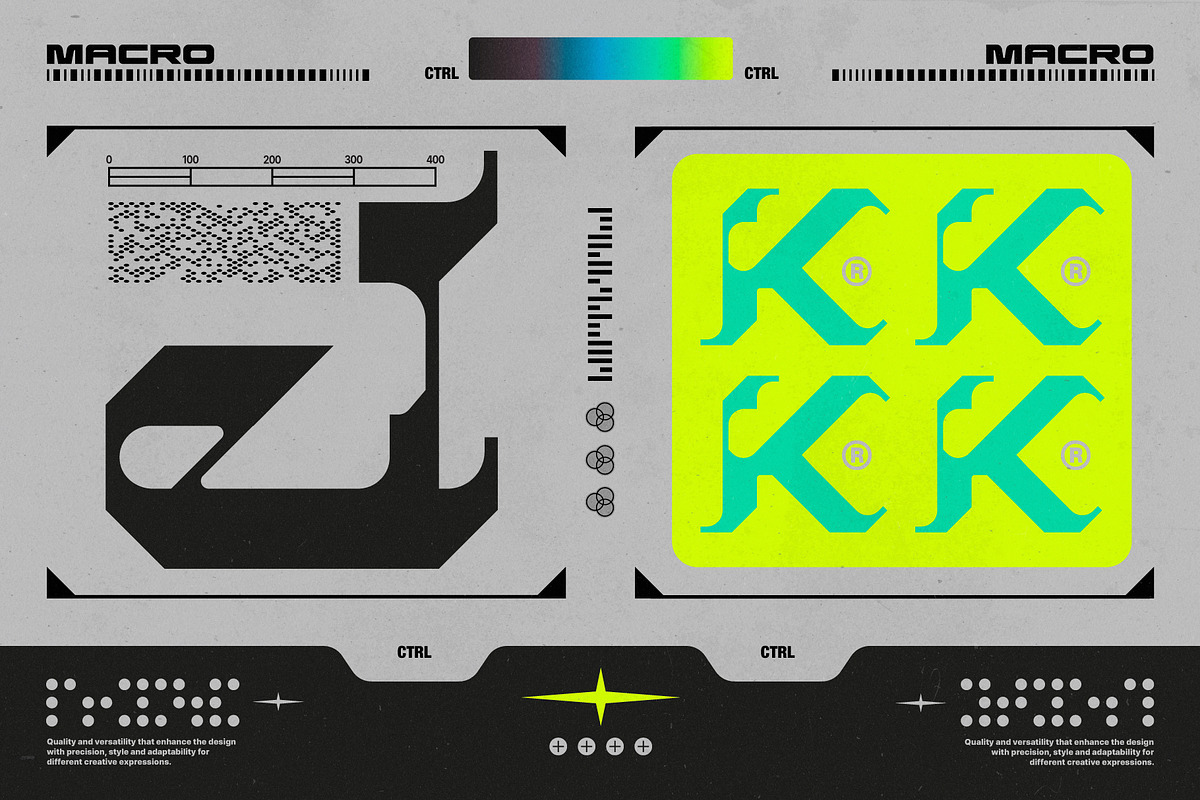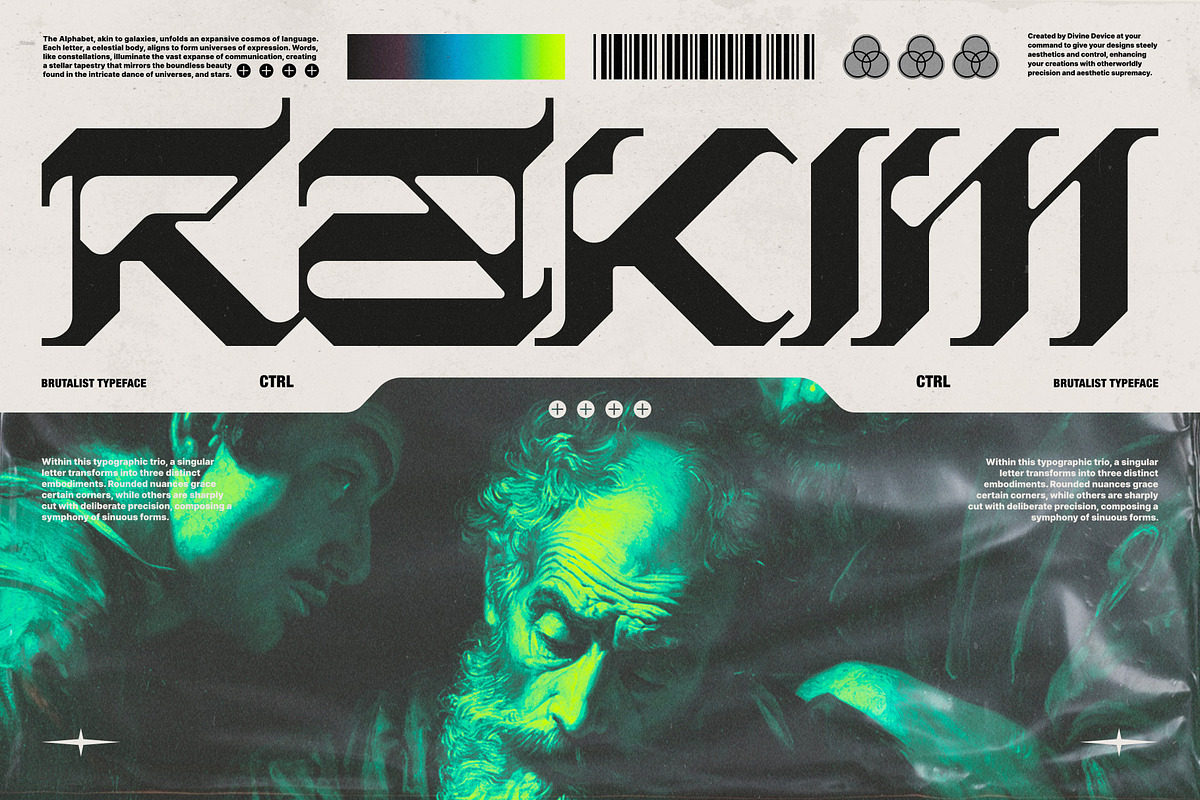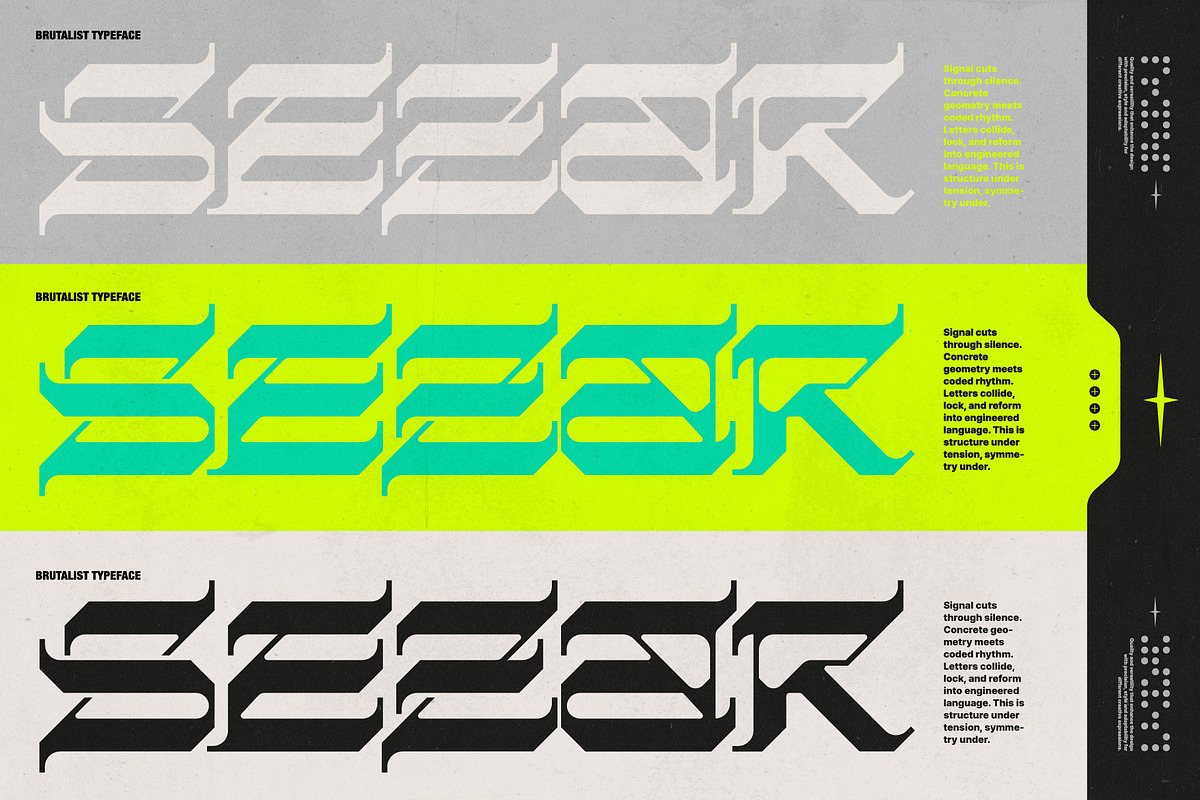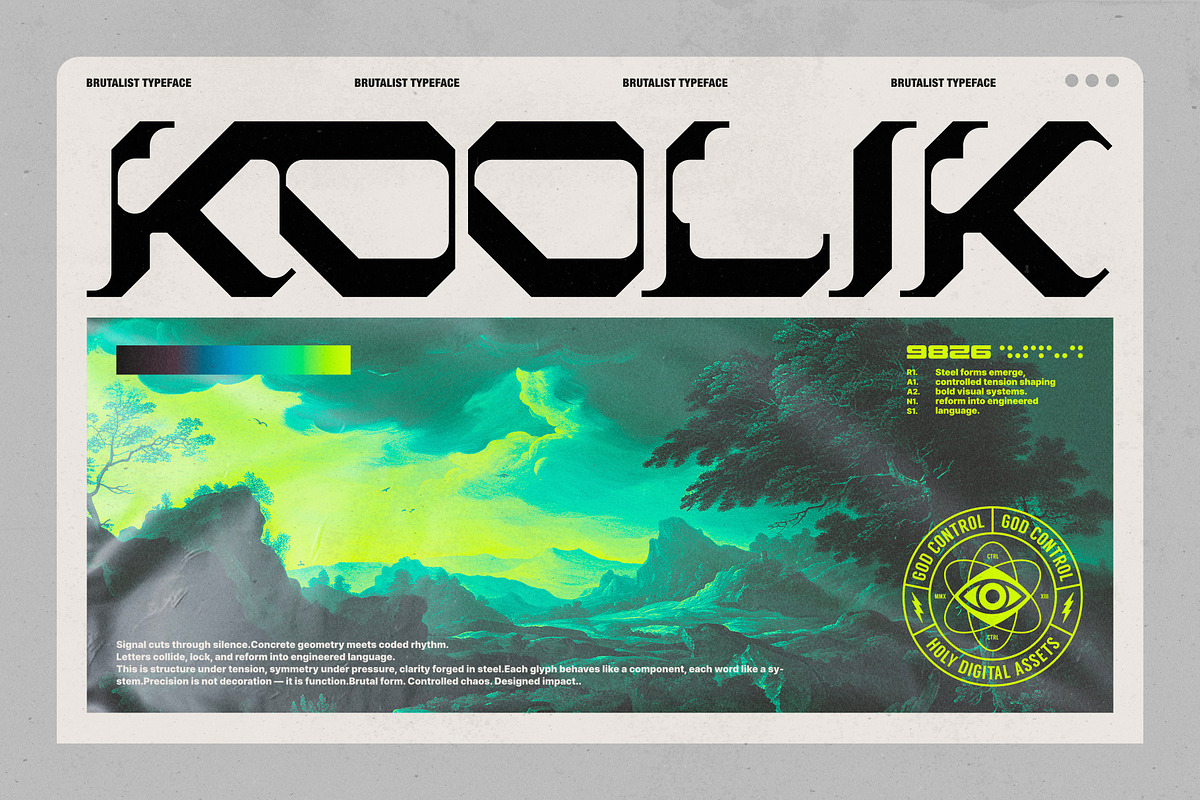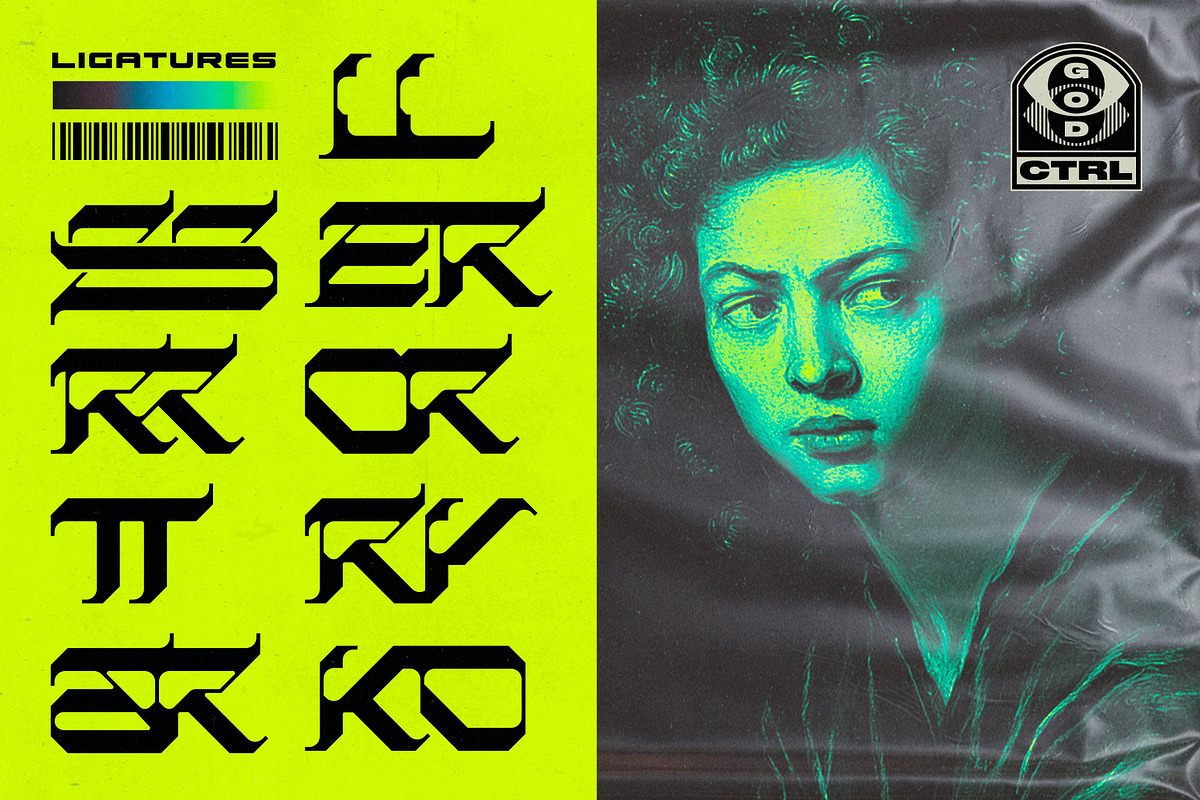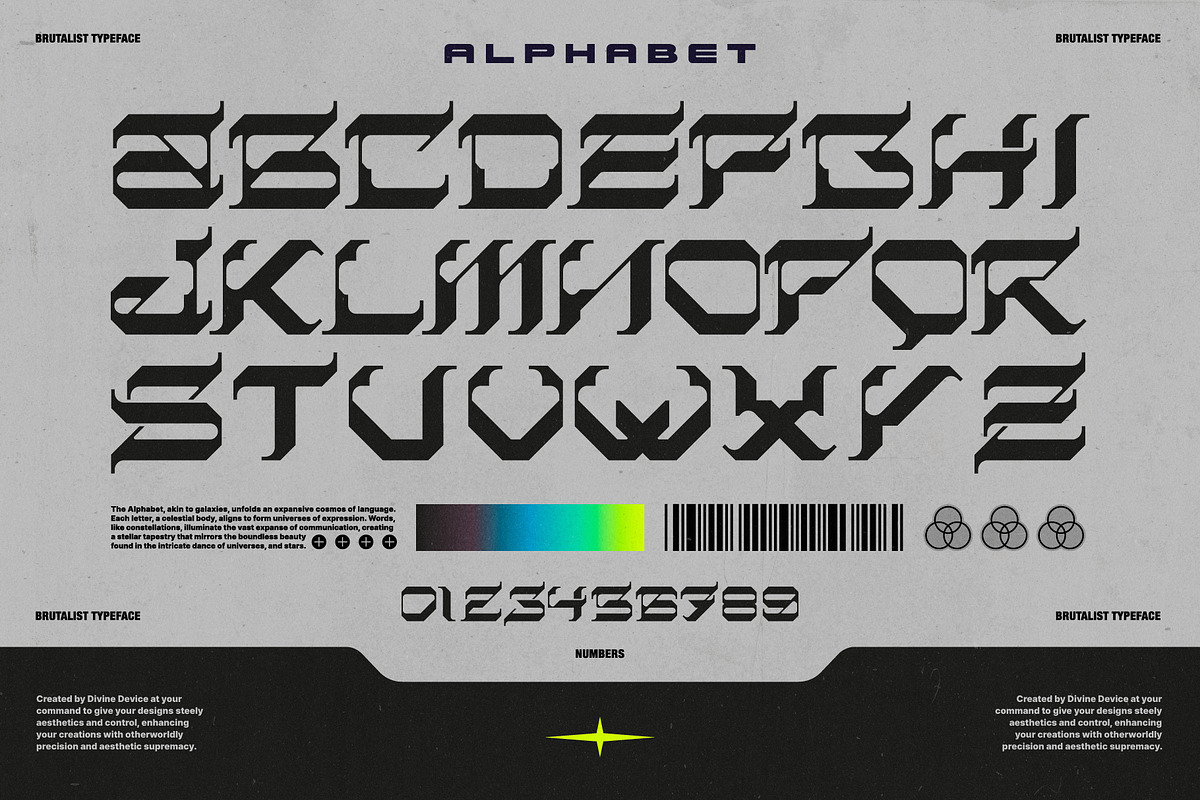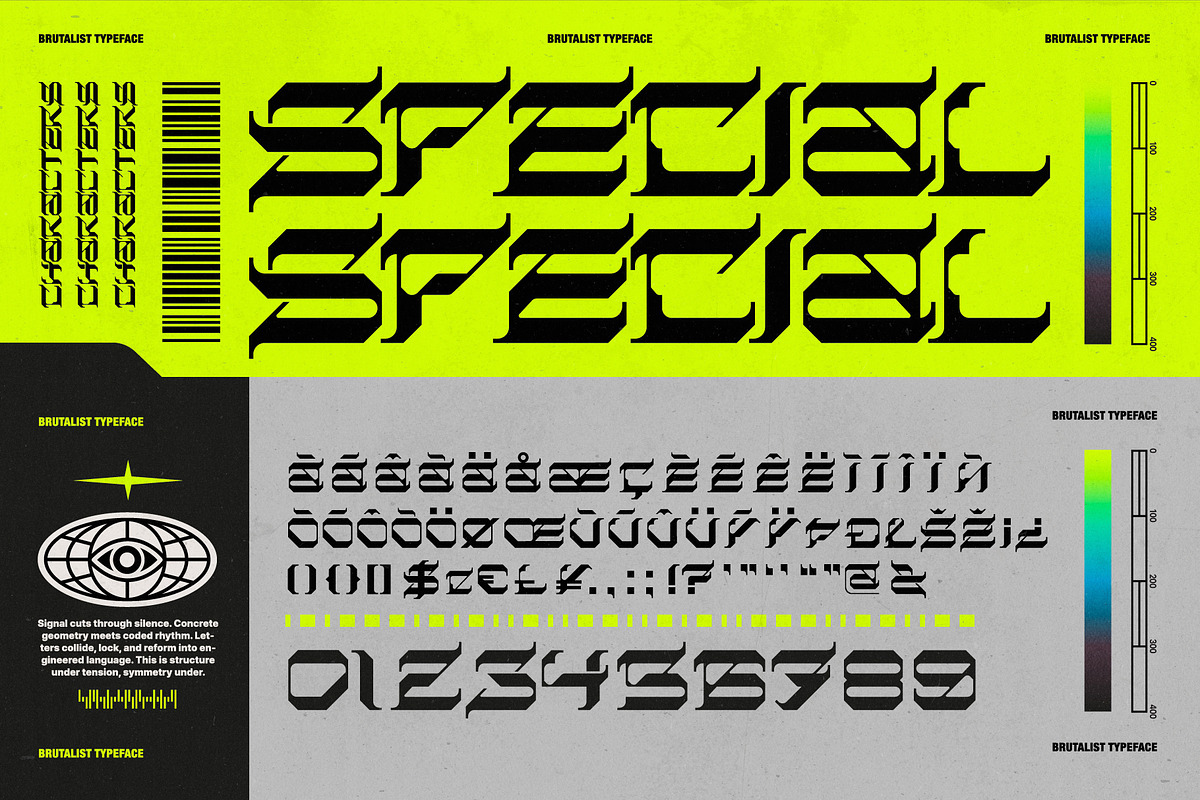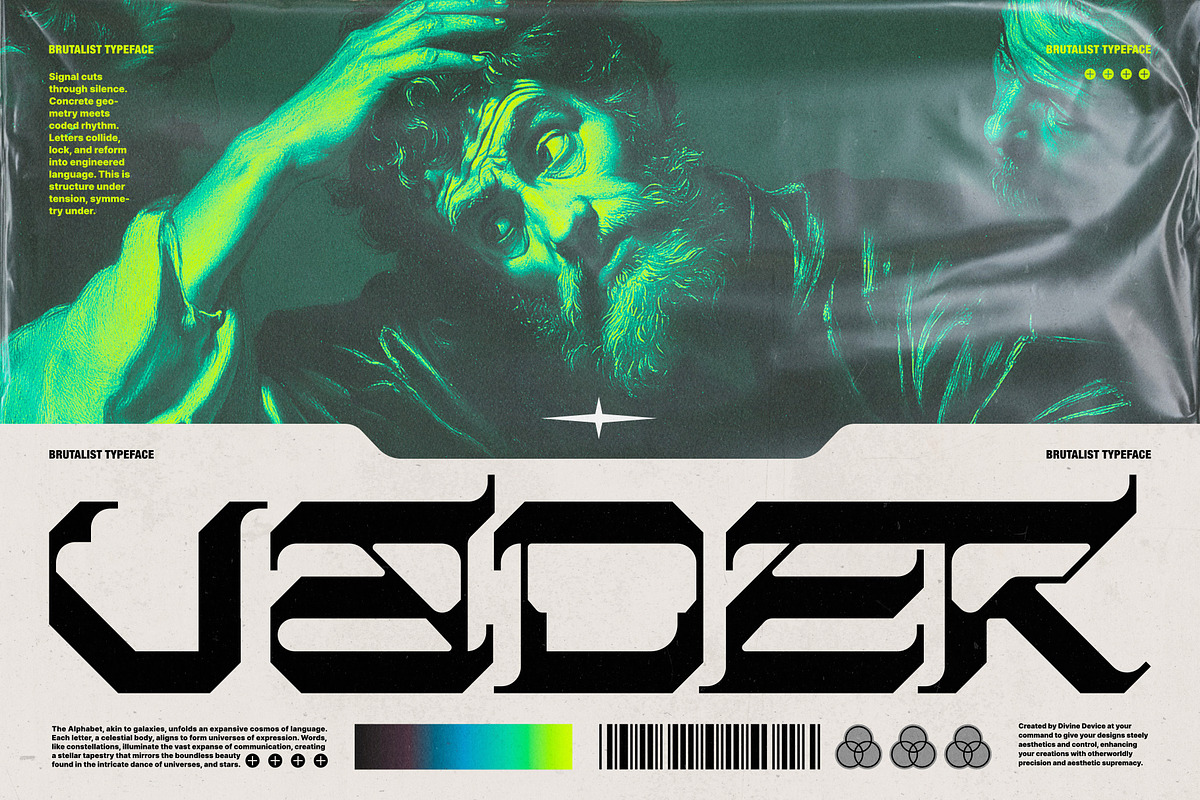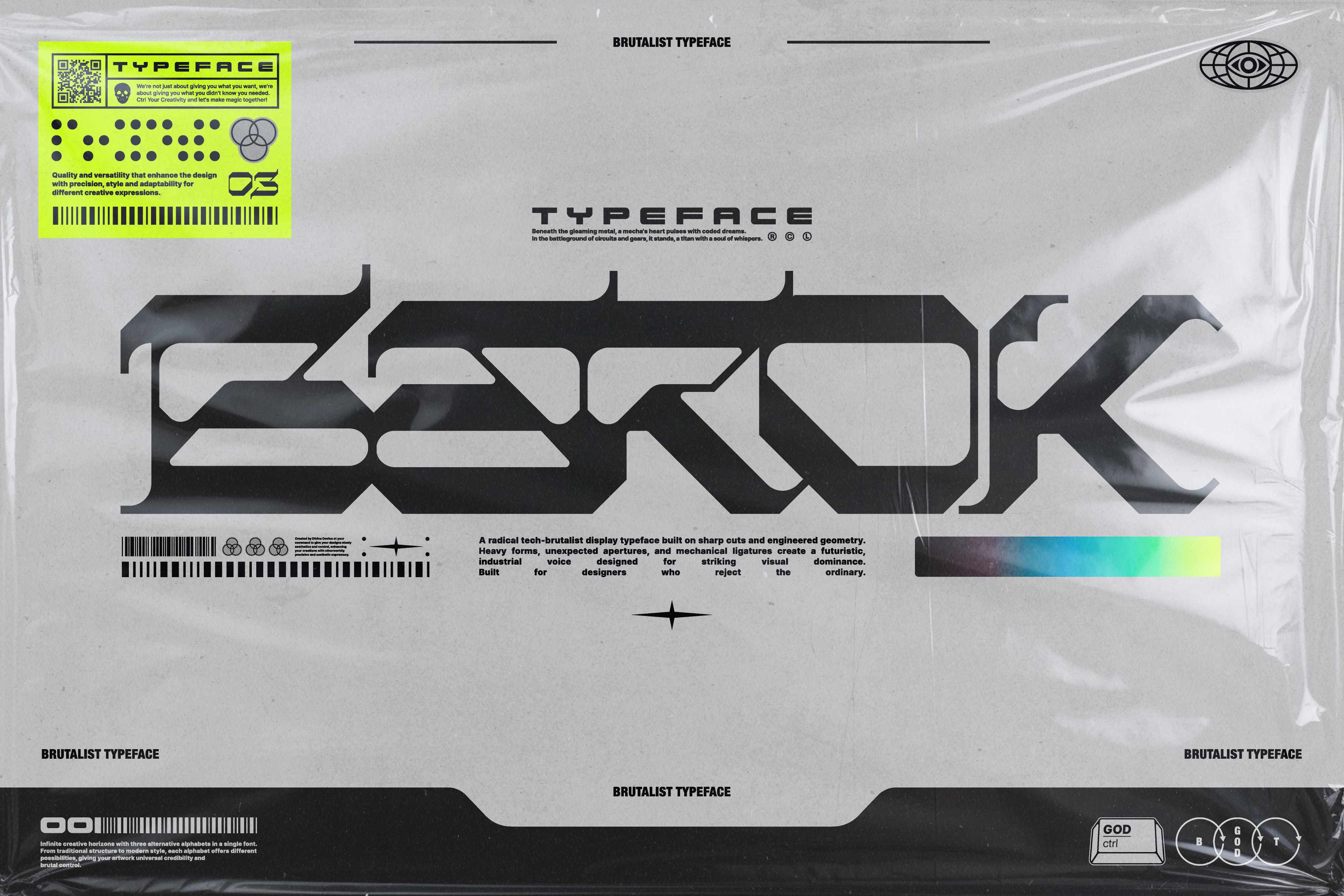
Barok Display Typeface
Barok is the display typeface you reach for when subtle isn’t enough.
It’s built on sharp cuts, engineered geometry, and controlled tension. Every character feels constructed, not drawn. Hard edges lock into mechanical rhythm. Negative space isn’t decoration — it’s architecture. The forms are heavy, but never clumsy. Aggressive, but always intentional.
Ligatures and special characters push the language further, and at large sizes, Barok reveals its true personality: complex, powerful, and brutalist. Use it for posters, branding, album covers, editorial headlines, fashion, tech identities, and experimental layouts.
Own it. Control it.
- One brutalist and bold display font
- Special characters and punctuation included